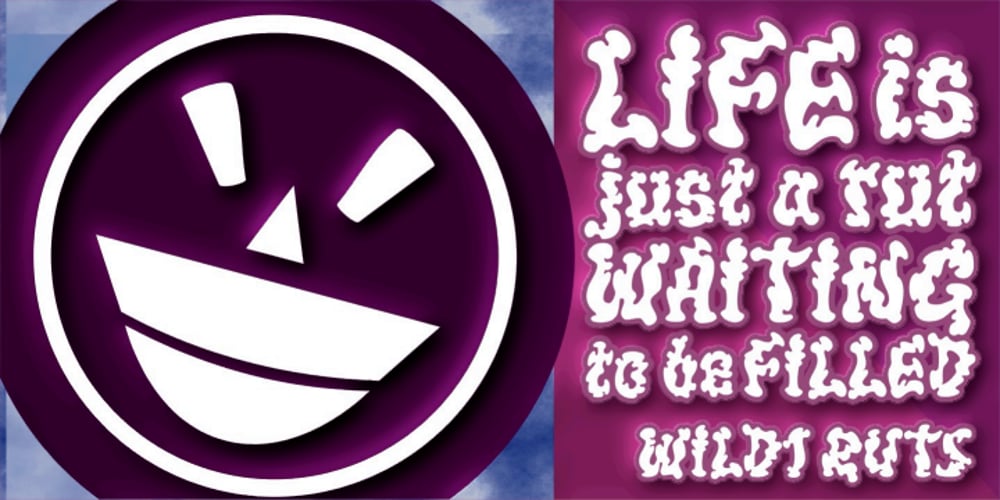
WILD1 Ruts Font Family was designed by Michael Gene Adkins and published by The Fontry. WILD1 Ruts contains 4 styles and family package options. Ruts looks like it was found in a rut, and if you can eek past all that splatter, it may just pull you out of one. Talk about having to be brave to use a wild font! Did someone break a lava lamp? Ruts is just one font in a package of five known as Wild Bunch Pak #1.